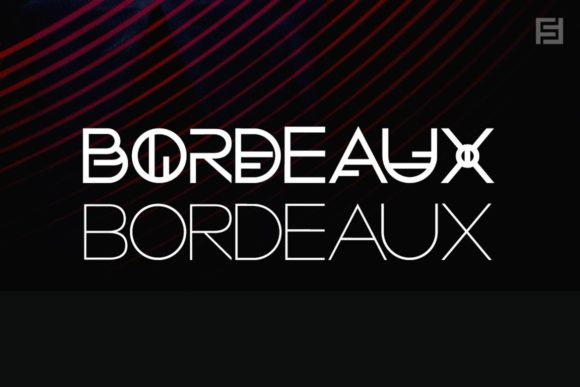
Journey into the world of Bordeaux Font, a striking display font collection poised to ignite your creative endeavors. Designed by the ingenious minds at Designova, Bordeaux Font captivates with its clean, sharp lines and a touch of modern elegance. This remarkable font family beckons you to transcend the ordinary and embrace the extraordinary in your designs.
Bordeaux Font's versatility knows no bounds. Whether you're a seasoned graphic designer, a budding entrepreneur, or simply seeking to add a touch of uniqueness to your personal projects, Bordeaux Font effortlessly adapts to your vision. Its crisp, legible strokes render it an ideal choice for headlines, logos, posters, branding materials, and web design. Experience the power of typography as Bordeaux Font elevates your words, transforming them into captivating and impactful messages.
Unlock a world of creative possibilities with Bordeaux Font. Its meticulously crafted characters dance across the page, inviting you to explore endless design avenues. Craft eye-catching social media posts, captivating presentations, and brochures that leave a lasting impression. Bordeaux Font's distinct personality shines through, adding a touch of sophistication and charm to any project. Prepare to witness your designs flourish as Bordeaux Font breathes life into your creations.
Step into the realm of digital artistry with Bordeaux Font. Its unwavering clarity and readability make it the perfect companion for web design. Craft user interfaces that exude elegance and professionalism, ensuring that your website visitors enjoy a seamless and immersive experience. Bordeaux Font's crisp lines and sharp angles create a visual hierarchy that guides users effortlessly through your content, ensuring maximum engagement and satisfaction.
Bordeaux Font is more than just a collection of letters; it's an artistic expression that ignites your imagination and fuels your creativity. Its distinctive style adds a layer of depth and intrigue to your designs, setting them apart from the mundane. Embrace the boldness of Bordeaux Font and watch as your projects evolve into captivating masterpieces.